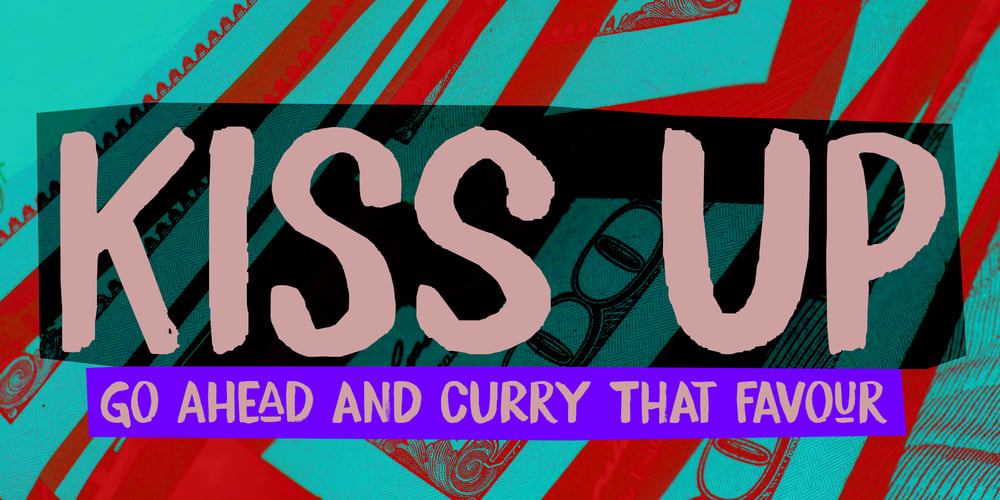
Kiss Up Font Family was designed by David Kerkhoff and published by Hanoded. Kiss Up contains 2 styles and family package options. I is quite bizarre to see the heads of big corporations kiss up when someone comes into power. It sounds like a bad cliché, but unfortunately it’s not. Kiss Up font is a handmade, brush font. It will look quite good on your book cover designs, your product packaging, signage and yes, even your protest signs!Kiss Up comes with a full set of alternates for the lower case glyphs, some extra underscored glyphs and a really nice alternative ampersand. All for you to play with!